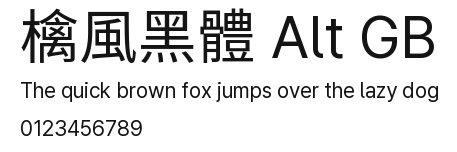
• Font Name: 檎風黑體 Alt GB
About 檎風黑體 Alt GB.ttf
檎風黑體 Alt GB.ttf is a modern, elegant sans-serif font designed for ultimate readability and visual harmony. Perfect for branding, headlines, web design, and print materials.